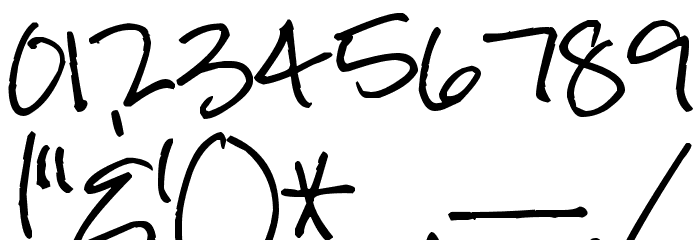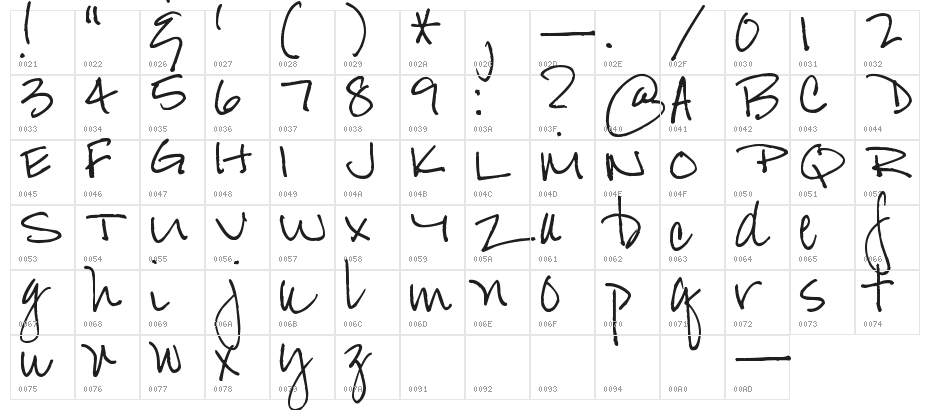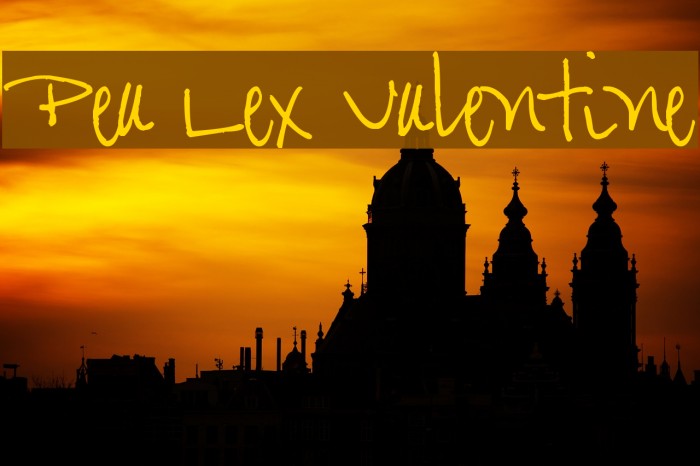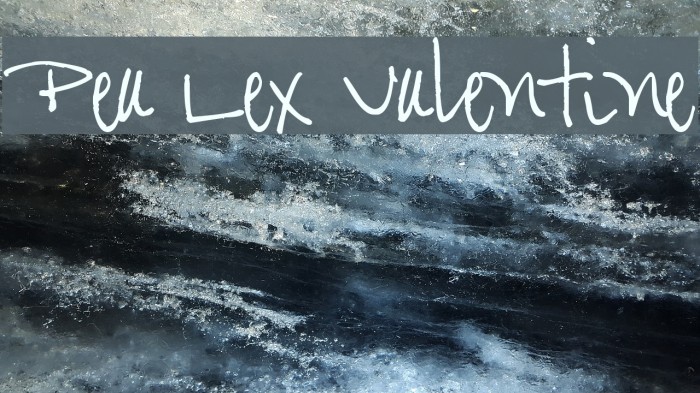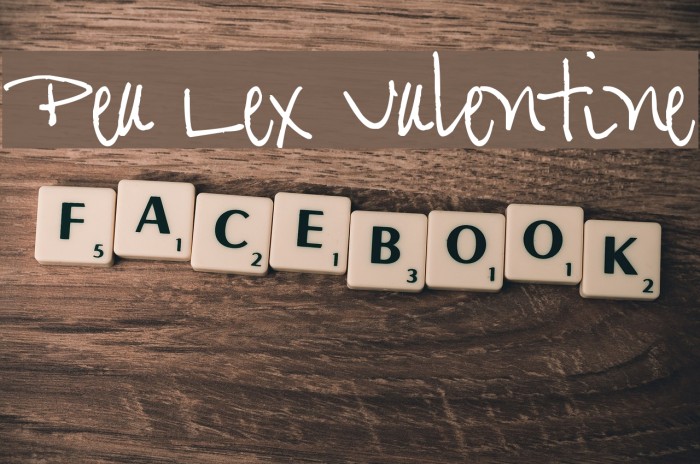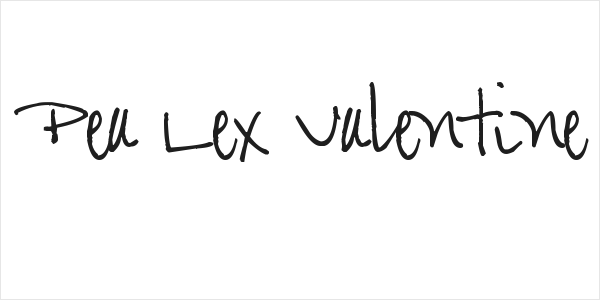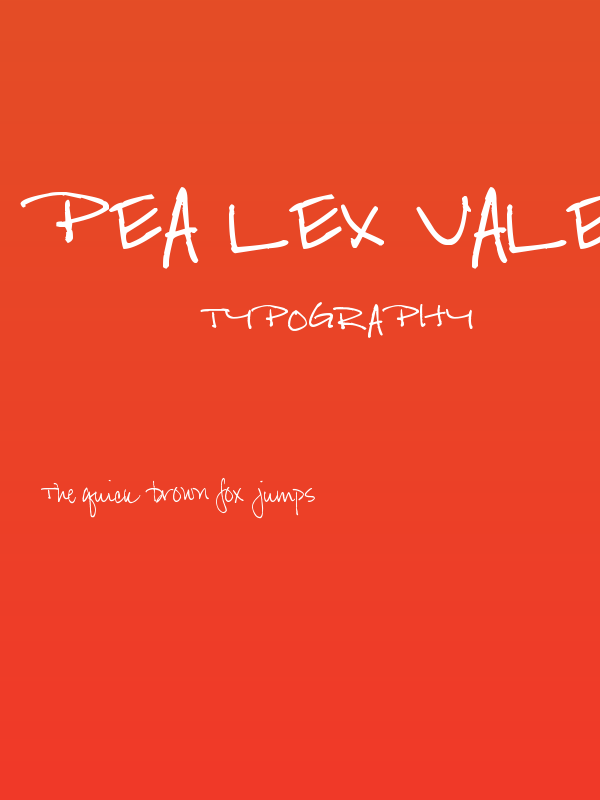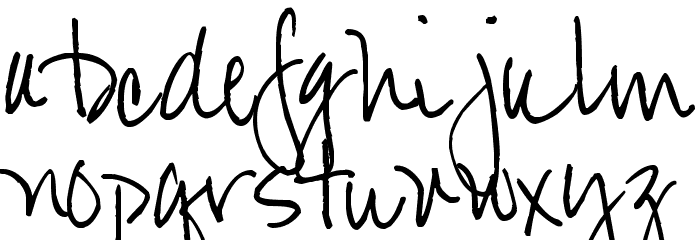
Pea Lex Valentine Font
Pea Lex Valentine Description
This font features a lively and dynamic handwritten style, characterized by its flowing and cursive letterforms. The strokes are uneven, adding a personal and informal touch, reminiscent of quick, expressive handwriting. The uppercase letters maintain a consistent height, while the lowercase letters vary in size, enhancing the casual and spontaneous feel. The numbers and special characters follow the same energetic style, making them blend seamlessly with the alphabet. Overall, this font exudes a sense of warmth and approachability, ideal for projects that require a personal or creative flair.
| Overall Style | Casual, Creative |
| Use Case | Logos, Invitations, Personal notes |
| Proposed Projects | Greeting cards, personal letters, creative invitations, and informal branding materials. |